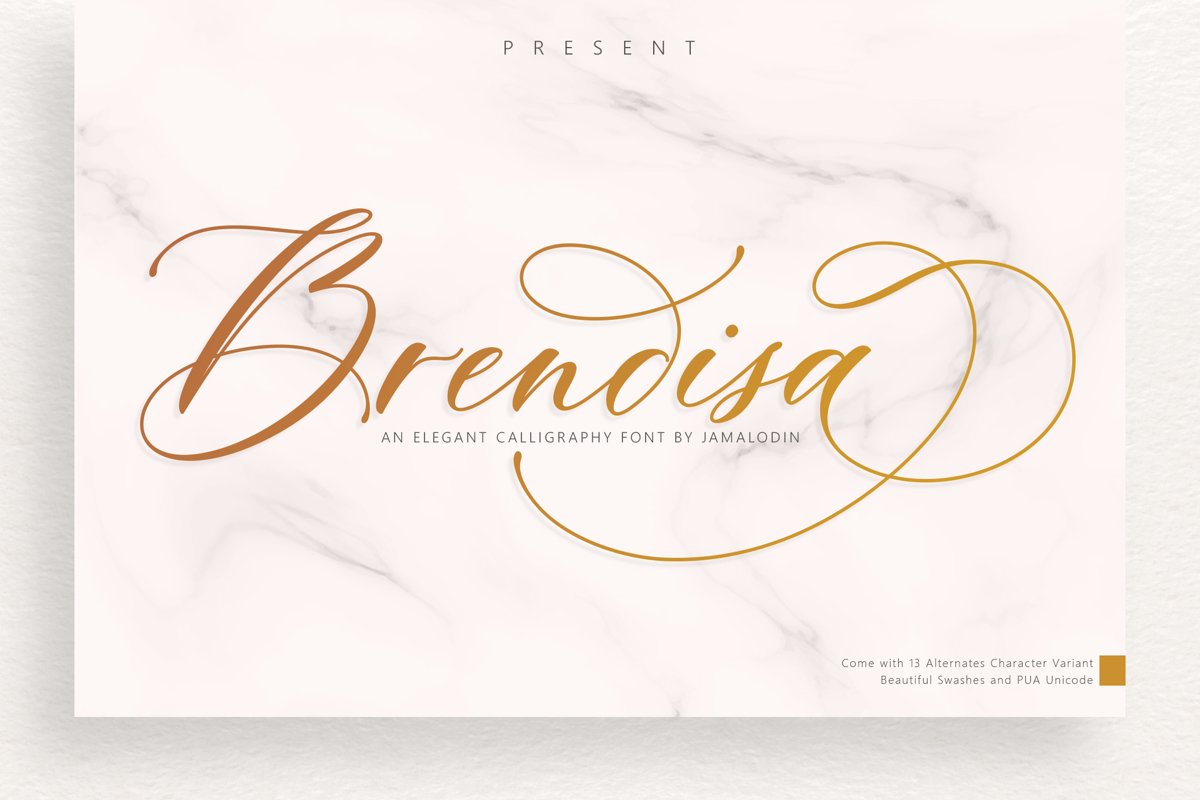
Brendisa Script
Brendisa Script Script is modern calligraphy script font, every single letters has been carefully crafted to make your text looks beautiful. With modern script style this font will perfect for many different project, example: invitations, greeting cards, posters, name card, quotes, blog header, branding, logo, fashion, apparel, letter, stationery and more!
Brendisa Script come with 540+ glyphs. The alternative characters were divided into several Open Type features such as Swash, Stylistic Sets, Stylistic Alternates, Contextual Alternates. The Open Type features can be accessed by using Open Type savvy programs such as Adobe Illustrator, Adobe InDesign, Adobe Photoshop Corel Draw X version, And Microsoft Word. And this Font has given PUA unicode (specially coded fonts). so that all the alternate characters can easily be accessed in full by a craftsman or designer.
Brendisa Script :
Uppercase & Lowercase International Language & Symbols Support Punctuation & Number PUA Unicode Range Standard Stylistic Alternates Stylistic Set 1-13 Character Variant Contextual